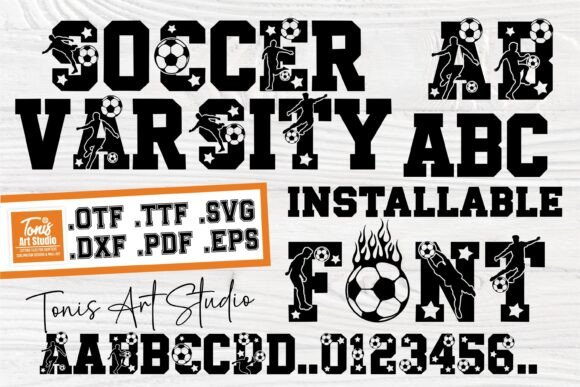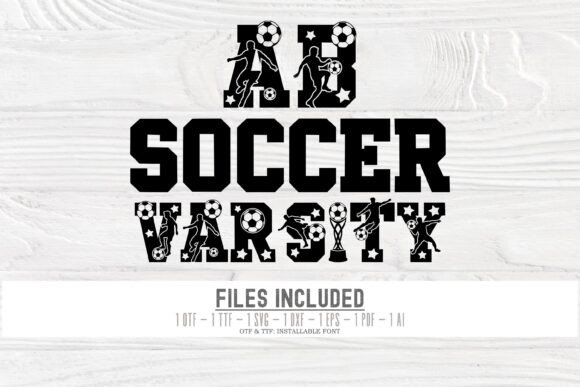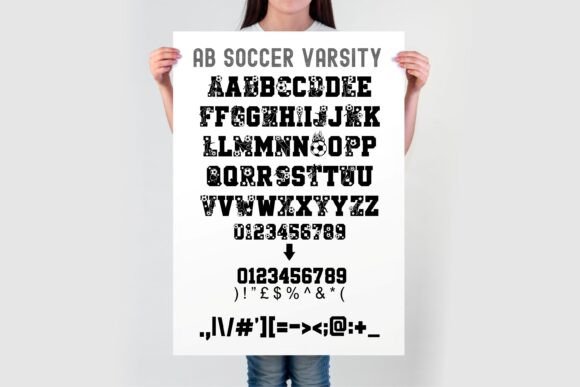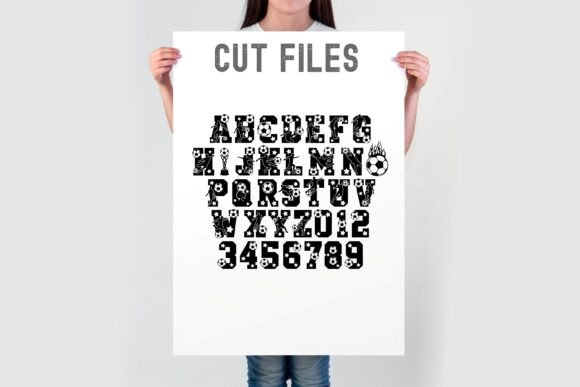
About the Ab Soccer Varsity Font
The wait is over! The incredible Ab Soccer Varsity Font is now available for your design toolkit. The Soccer Installable Font is a must-have for football fans and designers alike. With bold uppercase and lowercase characters, numbers, and sports silhouettes, this font captures the passion of the game. Includes OTF and TTF formats for easy installation and cut files (SVG, DXF, EPS, PDF) for Cricut and Silhouette users. Perfect for sportswear, invitations, and team branding!
Ab Soccer Varsity Font’s bold, energetic style makes it ideal for headlines, logos, and short, impactful text on sportswear, posters, and social media graphics. It excels in projects needing a strong, athletic feel. Avoid using it for body text or lengthy paragraphs; its weight and character design aren’t suited for readability in extended formats or UI elements.
This font pairs well with clean sans-serif fonts like Open Sans or Lato for a balanced contrast, or with a more playful, rounded sans-serif such as Bubblegum Sans for a cohesive yet dynamic look. For a more sophisticated feel, consider pairing it with a classic serif like Garamond or a subtle script font for invitations and branding materials.
The overall personality is bold and playful, conveying a sense of youthful energy and enthusiasm, perfect for brands targeting a sporty, active audience.